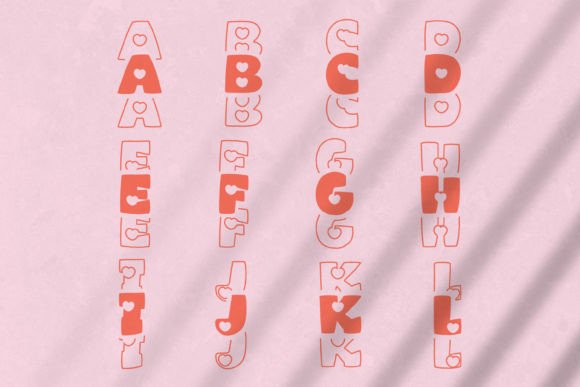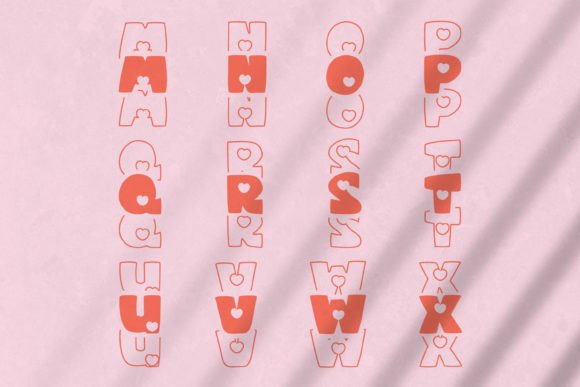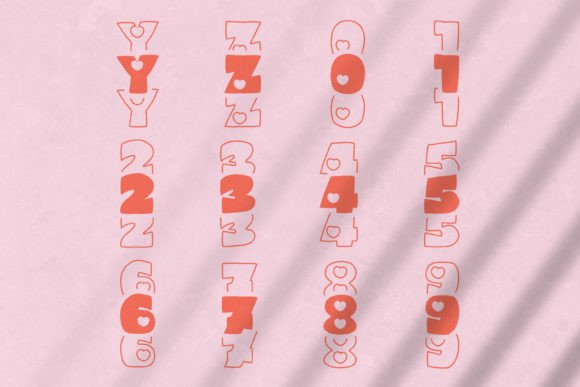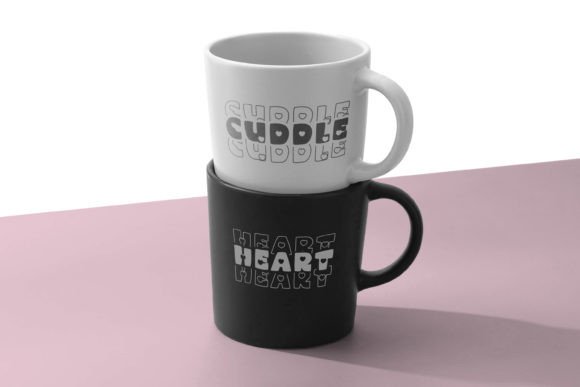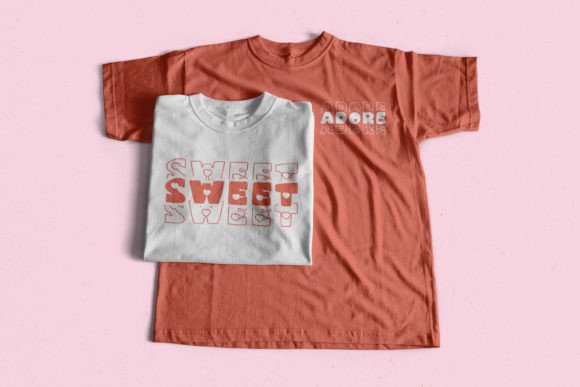
Introduction to Lovebuddy Font
Lovebuddy is an incredibly cool font.
Whether you use it for custom designs, DIY crafts, or just any creation that requires a lovely touch, this font will be an amazing choice .
Key Features of Lovebuddy Font
Why Choose Lovebuddy Font?
Lovebuddy Font offers exceptional quality and versatility, making it a valuable addition to your design toolkit. Whether you’re creating for personal projects or commercial use, Lovebuddy Font delivers professional results.